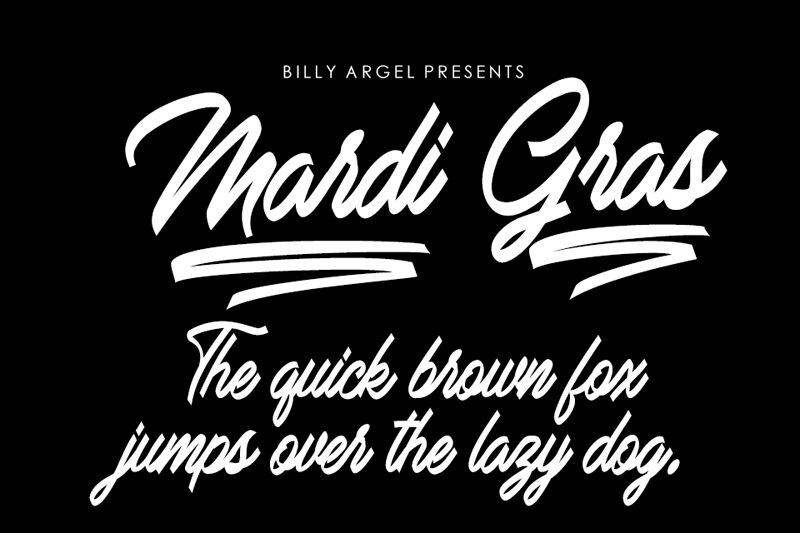
Mardi Gras is a captivating brush font that exudes a sense of playfulness and festivity. Designed by Billy Argel, this script-inspired typeface boasts flowing, organic strokes that capture the vibrant spirit of the iconic Mardi Gras celebration.
The font's bold, expressive character lends itself effortlessly to a variety of design applications, from eye-catching event invitations and party decor to bold branding and packaging. Its distinctive flair and fluid movements make it a standout choice for projects that demand a touch of energy and celebration.